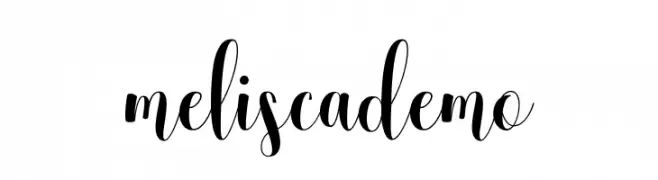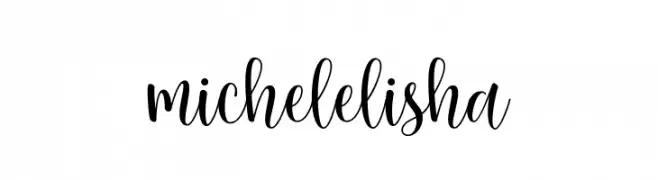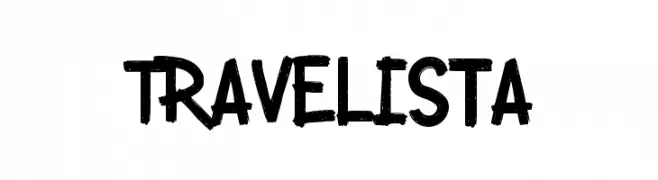
A graceful, flowing script font with elegant, interconnected letters.
An elegant and decorative script font with intricate swirls and loops.
A dynamic and elegant script font with flowing, cursive letterforms.
An elegant script font with flowing, interconnected letters and high contrast strokes.
An elegant script font with high contrast and flowing, cursive style.
A playful, hand-drawn font with tall, narrow letters and a whimsical style.
An elegant, flowing script font with graceful loops and smooth cursive strokes.
A bold, hand-drawn font with a playful and energetic style.
A lively and flowing script font with elegant, fluid strokes.
A fluid, cursive font with a dynamic and artistic handwritten style.